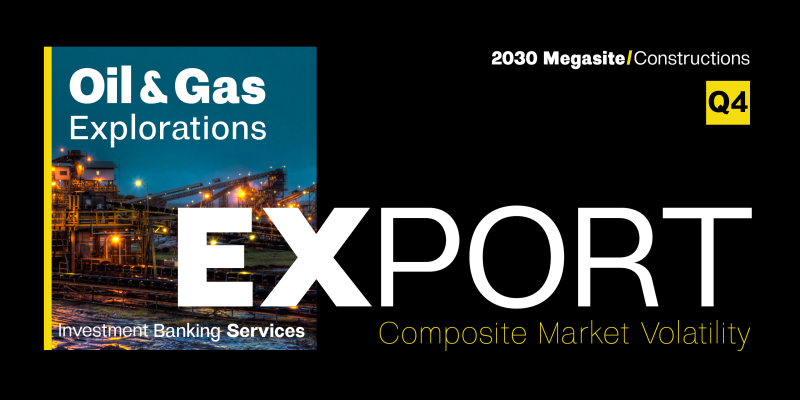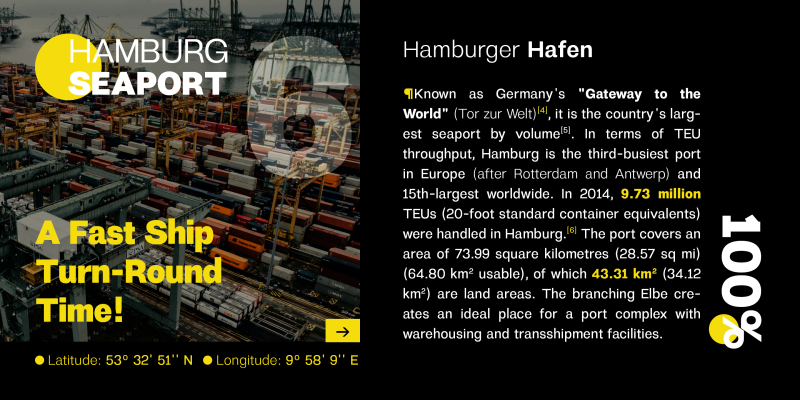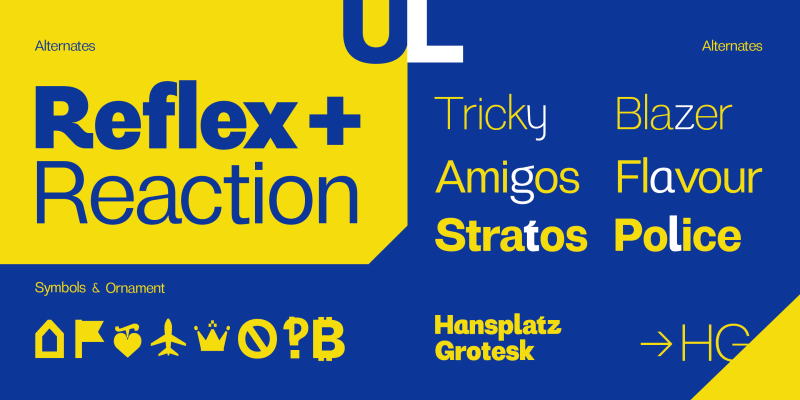
Hansplatz Grotesk Font Family
Hansplatz Grotesk is a sans serif type family of nine weight. Influenced by Akzidens Grotesk, Hansplatz typeface bring a new approach to this utilitarian style of grotesk. With more square proportions rather than geometric style, Hansplatz grotesk aimed to ease typesetting job when arranging a words or paragraph easily.
A wide range of weight gives flexibility to every design project, hansplatz fit nicely to grid-system because of proportions. Furthermore Hansplatz Grotesk supplied with smart Opentype scripting to assist typesetter and designer very easily to Hansplatz feature. Hansplatz Grotesk truly a utilitarian, workhorse, neutral, and of course faceless.
But, it makes the work done quickly. For display use, Hansplatz Grotesk Black to Semi-Bold is recommended, for paragraph heavy design, use regular and light weight. To spice up, adding Hairline or extra-light weight will make a design execution looks great and catchy but not intimidating.
Where Hansplatz Grotesk Font Family works best
Hansplatz Grotesk Font Family keeps its shape at 14 and 16 pixels, which is where interface text actually lives. Numbers and capitals stay distinguishable in tables.
Presentations are read at a distance; a clean sans with a strong bold is the safest hierarchy you can build in a hurry.
Simple letterforms survive angles, glare and movement, so Hansplatz Grotesk Font Family suits door signs, menus boards and exhibition panels.
What kind of work does Hansplatz Grotesk Font Family suit?
It sits in the Sans Serif Fonts group and reads as bold, geometric, sans serif, sans serif fonts. That makes it a candidate wherever those qualities help: headings, packaging, social graphics and brand work. Set it at the size you plan to use before deciding.